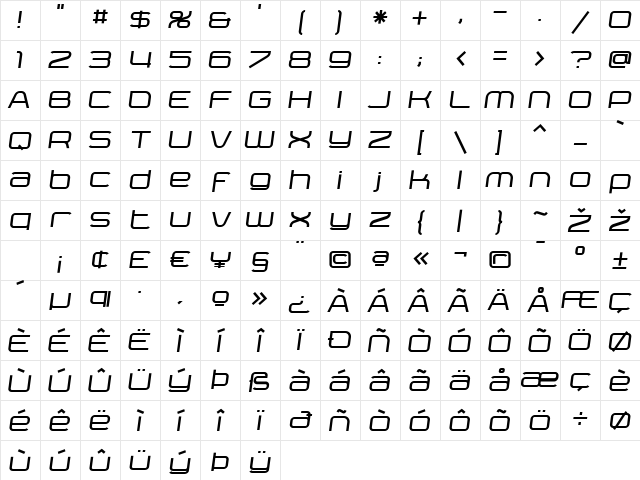
Yumi Oblique Bold
Foundry: Neil Summerour (Positype)
Designer: Neil Summerour (Positype)
Design Context for Yumi Oblique
Yumi Oblique is a composed and adaptable typeface that performs quietly and consistently across a wide range of design contexts. The slanted form adds forward momentum and visual energy. Its bold stroke weight gives it real presence on the page.
Pro Tip: Use Yumi Oblique for emphasis, pull quotes, and subheadings where its slanted energy can add rhythm to the layout.
Who designed the Yumi Oblique Bold font?